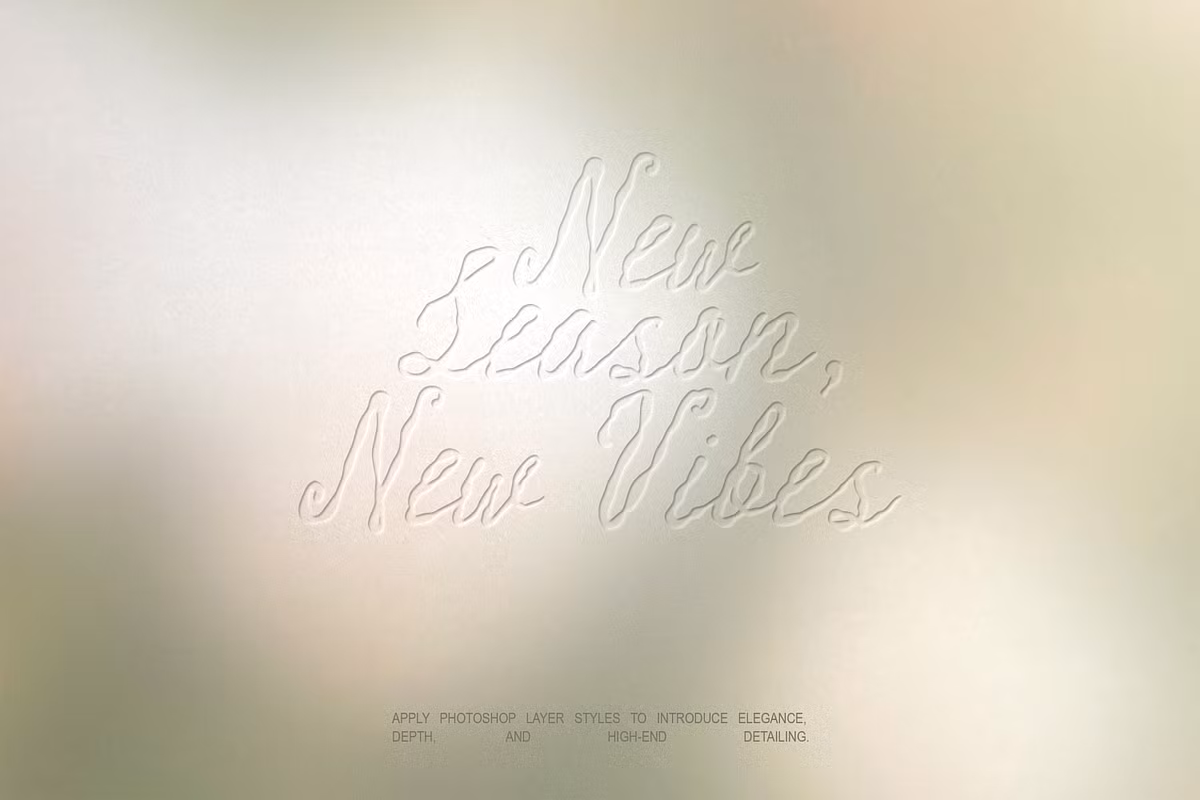
April Story Wavy Romantic Script: Elegant Handwritten Font for Design
Introduction to April Story
April Story is a really pretty font that looks like it was written by hand. It’s got a special wavy look that makes it stand out. Each letter flows into the next one, which gives it a spontaneous and charming feel. This font is great because it’s both elegant and playful, making it perfect for designers who want to make a big impact. You can use it for things like wedding invitations or just a casual card, and it will add a personal touch to your design.
The font has a nice balance of romance and whimsy, which makes it really versatile. Whether you’re going for something fancy or something more laid-back, April Story is a great choice. It’s like adding a little bit of personality to your project, and it’s sure to make it more memorable.
Design Style of April Story
The way April Story looks is really special – it has these flowing lines that connect the letters and soft, curvy shapes. Each letter is designed to make you feel all warm and fuzzy inside, like you’re reading a sweet note from someone you care about. The wavy lines that make up the letters don’t just look pretty, they also give the font a sense of freedom and creativity.
That’s why April Story is such a great choice for projects where you want to connect with people on an emotional level. It’s perfect for anything that needs a personal touch, because it feels like it was written just for you. The soft curves and flowing lines all work together to create a sense of love and warmth, making it a great fit for projects that need to feel friendly and approachable.
The way the letters curve in this font makes it feel like it’s moving, which grabs your attention and makes it great for headings and titles. It’s also got a romantic feel to it, but with a playful twist, so it works well in lots of different design situations – like fancy invitations or casual logos.
Character Sets and Features
The April Story font has a lot to offer – it’s got all the letters, both big and small, numbers, and plenty of punctuation marks. This means you can say what you want to say without anything getting in the way of how it looks. One of the things that makes this font really special is the way the letters connect to each other, it’s like they’re flowing into one another.
This makes everything look more put together and nicer to look at. It’s a pretty cool font, and it’s easy to see why people like it – it’s got a certain charm to it that’s hard to find in other fonts. Whether you’re writing a story, making a sign, or just typing out a message, April Story is a great choice because it’s so versatile and looks good no matter what you’re using it for.
- Big letters: Stylish and ideal for headings and titles.
- Lowercase Characters: Soft and inviting, ideal for body text and informal communications.
- Numbers: Created to fit in with the style of your writing.
- Punctuation Marks: Includes a full set of punctuation, enhancing your ability to create complete sentences.
Ideal Use Cases for April Story
April Story is really good at lots of things, which makes it super useful for designers in all sorts of areas. So, what are some of the best ways to use it?
- Wedding and Event Stationery: Adds a touch of romance to any special occasion.
- Greeting Cards: Perfect for romantic and celebratory occasions.
- Feminine and Lifestyle Branding: Creates a soft, approachable identity.
- Journaling and Scrapbooking: Brings a handwritten feel to personal projects.
- Website Headers and Promotional Graphics: Captures attention and conveys brand personality.
April Story has a certain charm to it, making it a great choice for projects that want to touch people’s hearts and bring them together. Its style is versatile, so it can be used in many different ways to create a sense of connection and emotion.
Pairing Suggestions for April Story
To maximize the impact of April Story in your designs, consider pairing it with complementary typefaces. Here are some suggestions:
- Modern Fonts: Pair with Montserrat or Lato for a balanced contrast.
- Serif Fonts: Use Playfair Display for an elegant, classic look.
- Geometric Fonts: Fonts like Poppins or Raleway enhance the playful character.
When pairing fonts, ensure that the secondary typeface complements the unique characteristics of April Story without overpowering its charm. This balance is crucial for creating harmonious designs.
What’s really great about April Story is that it’s been thoughtfully designed to help you create things that are not only beautiful, but also meaningful. This means you can use it to make designs that really speak to people, and that’s what makes it so versatile and useful.
Whether you’re working on a personal project or something for a client, April Story can help you add a touch of personality and emotion to your work. We hope you find lots of inspiration and have fun creating something special!